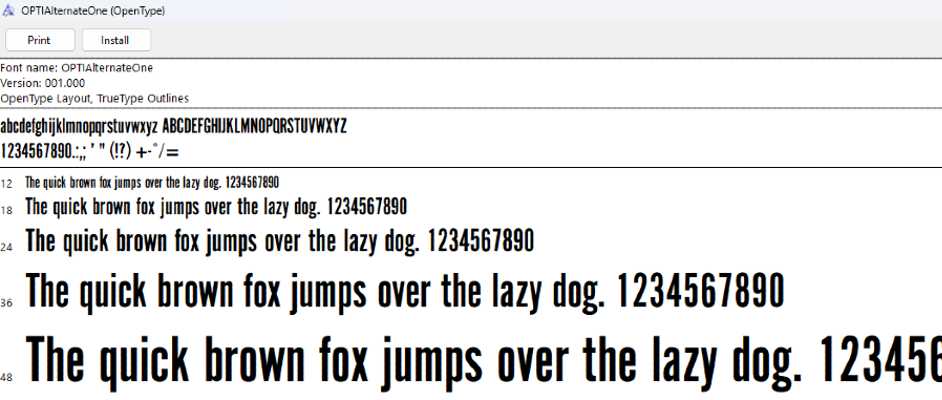
The name of the Sesame Street font that most closely resembles the original logo lettering for this famous kids TV series, is a typeface by the name of Alternate One. It was created by the design team at OPTIFONT.�
The Sesame Street logo uses a sans-serif font that is bold, capitalized, and white. This creates a strong contrast with the green background and makes the text easy to read. It uses a green and yellow color scheme that is bright, cheerful, and eye-catching. These colors are used to good effect as that are associated with nature, happiness, and energy, which reflect perfectly the show's positive and fun atmosphere aimed at children. The shape is a rectangular and oval shape for the signs, which are rounded at the corners. All of these design elements add up to create a casual look and feel, that is perfectly aligned with their young audience demographic.
The following is an image of the character map that I recently created, demonstrating all of the individual characters that are included with this free Sesame Street font: